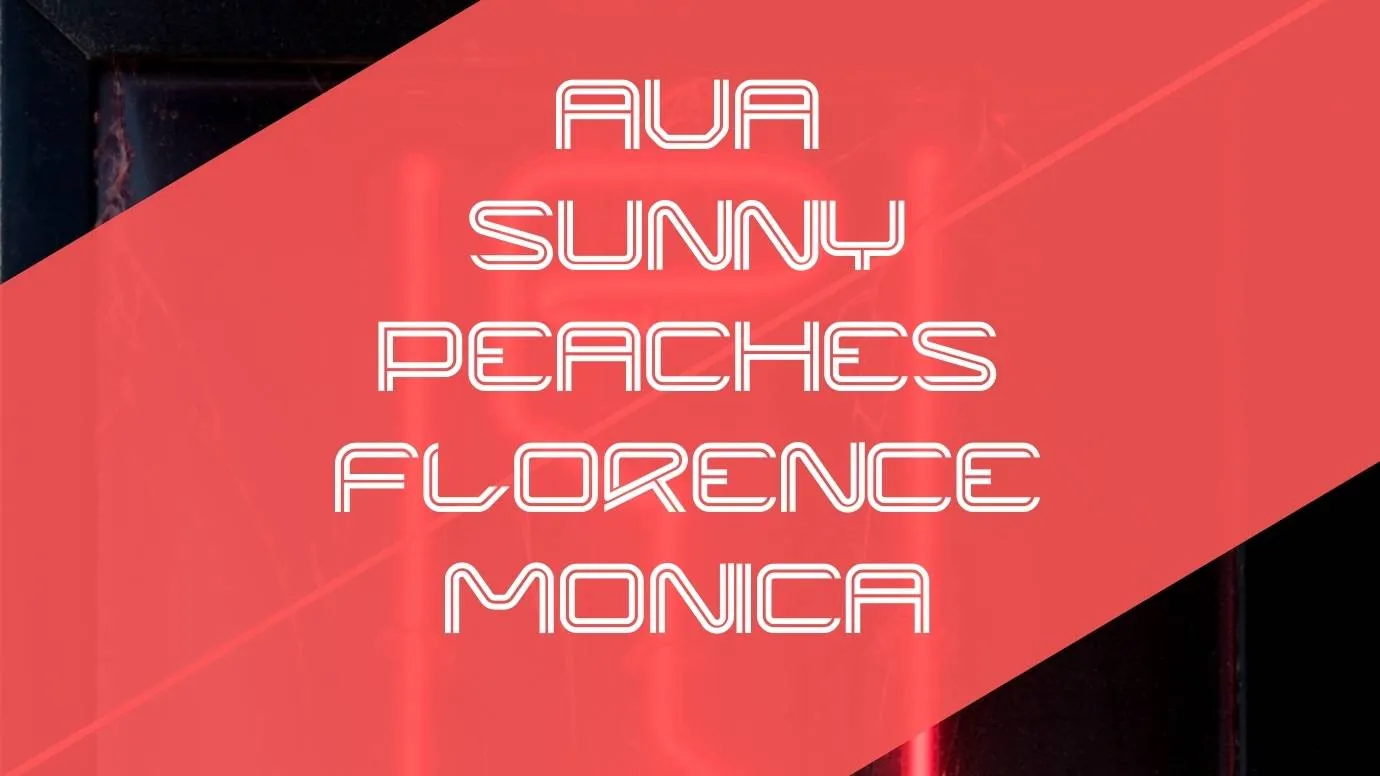
Now I am presenting to you a stylish and unique font. Liner font is an attractive font. This font as shown in its name is constructed with lines. These lines are in a stylish sequence. This font is available in single characters.
This font is available in a complete set of characters including all caps and numbers. It also contains a complete set of glyphs. This font is similar to the Disco Font. This font is mostly used in logos, book titles, and fabric designing.
There are some other fonts like 2 line font, linear font, and Castellar font with which you can create fabulous text styles. You can use this font in invitation cards, shop names, product packaging, fashion designing, magazine covers, book titles, fabric designing, and many projects.
Creator of Liner Font
This stylish font is created by a foundry Onezero. This is a graphic designing foundry. It is based in Dunedin, Newzealand.
This font style is created with a unique and regular style. This attractive style is a mixture of different features, including capital alphabets, small alphabet, symbols, punctuations, glyphs, digits, special characters, and different language support.
View of Liner Font
| Name | Liner Font |
| Style | Decorative |
| Designer | Onezero |
Is Liner Font good for body text?
No, this font is not good for body text due to its line typeface. You can use this font in invitation cards, product packaging, headlines, and covers.
Is Liner Font Display font?
Yes, this font belongs to the display category. It is a stylish and stunning font.